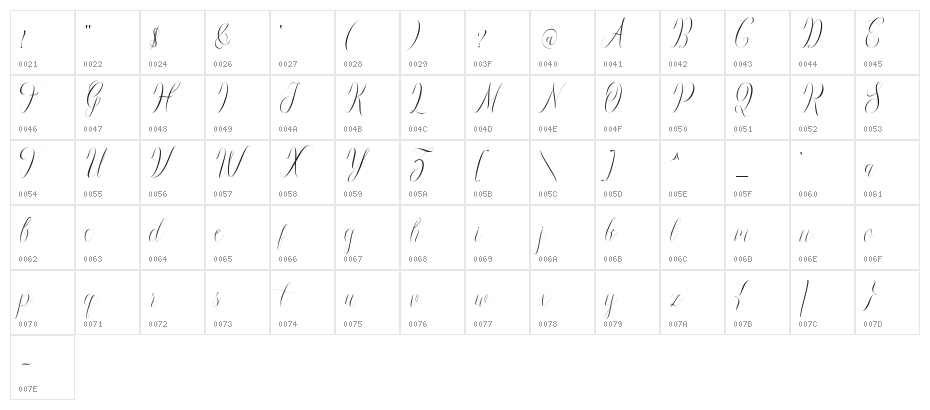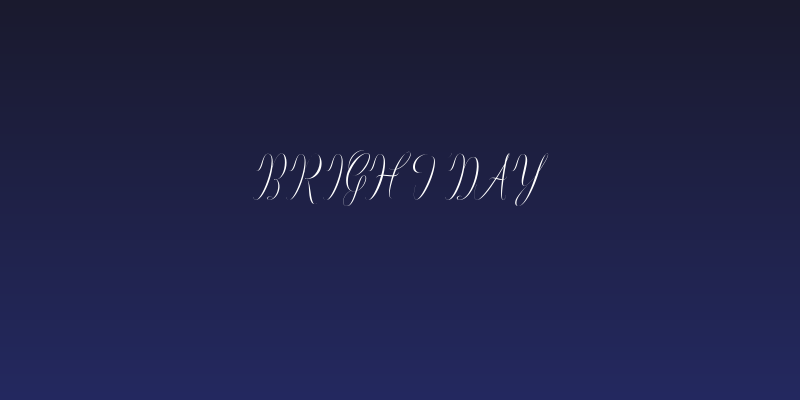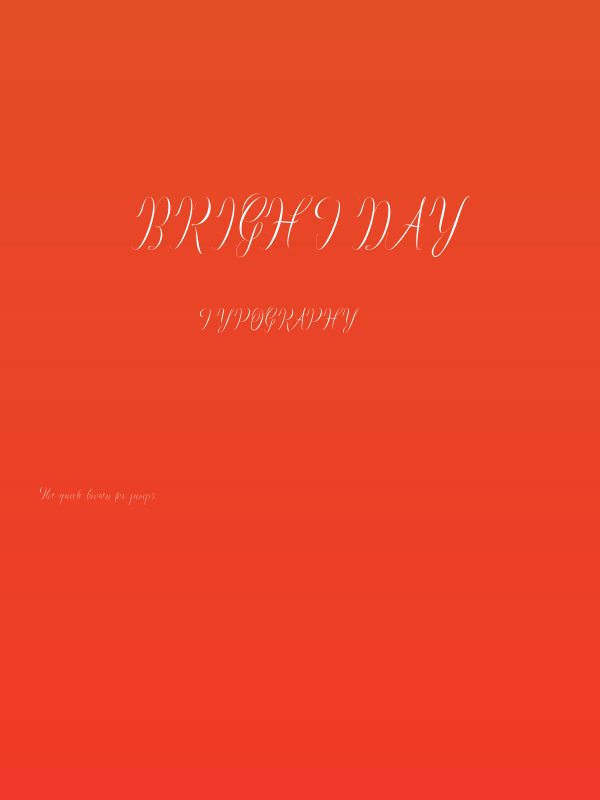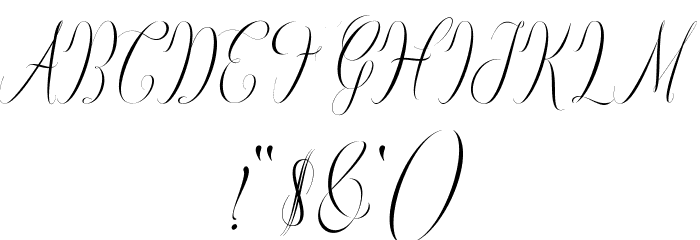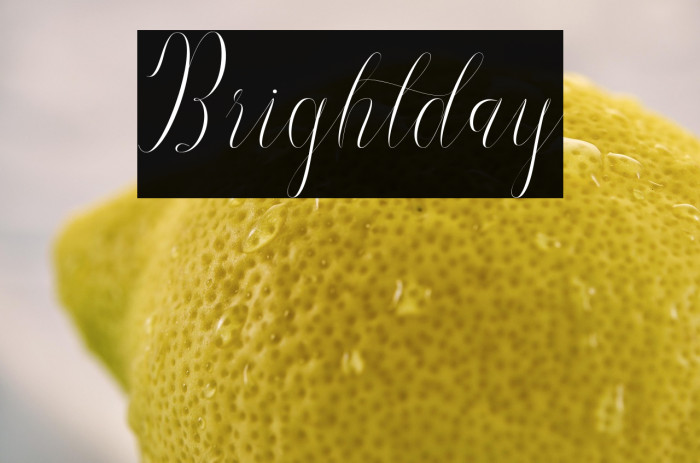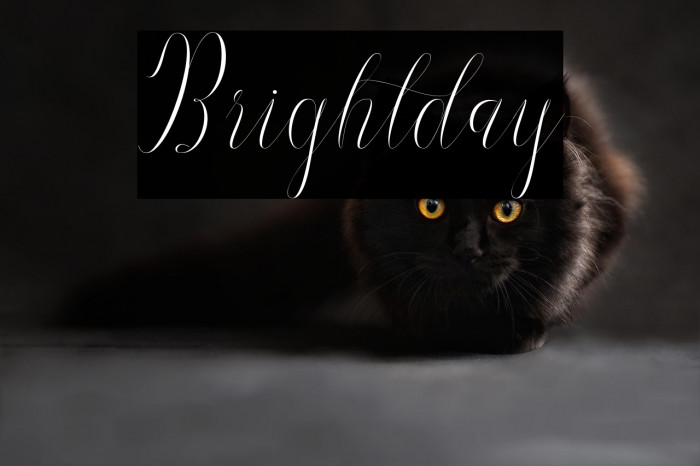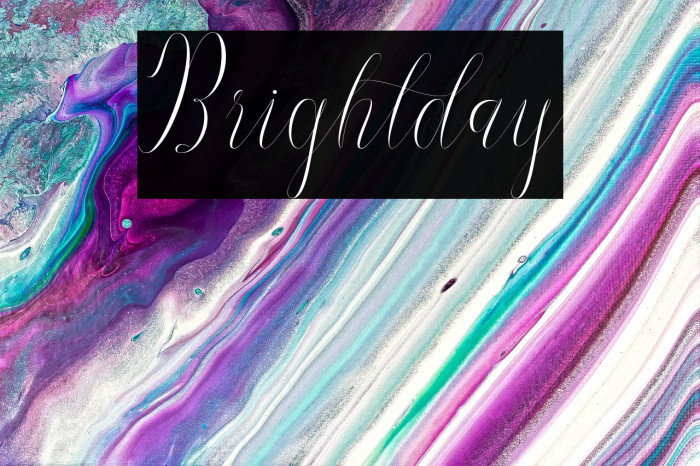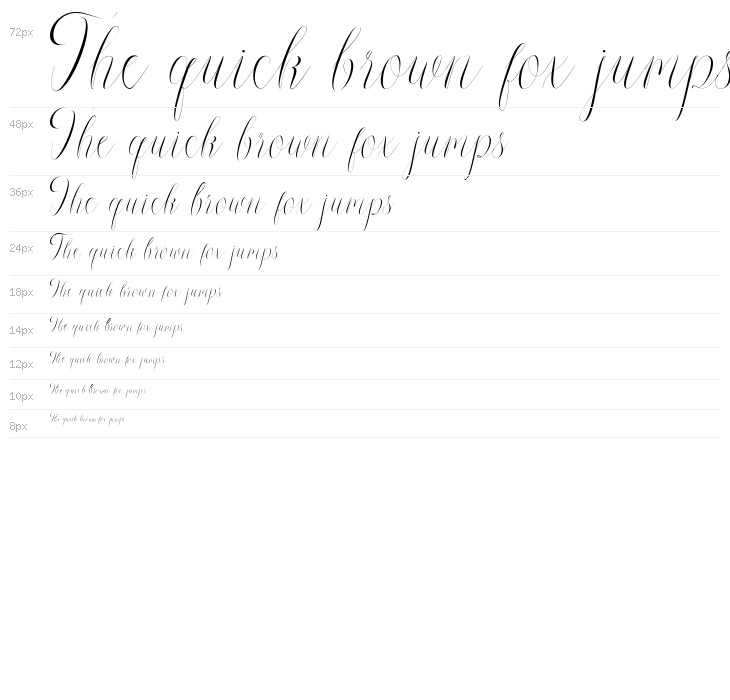
Brightday Font
Brightday Description
This elegant script font features flowing, cursive letters with a refined and sophisticated appearance. The characters are delicately crafted with thin, graceful strokes that create a sense of fluidity and movement. The uppercase letters are particularly ornate, with intricate loops and swashes that add a touch of luxury and flair. The lowercase letters maintain a consistent style, complementing the uppercase with their smooth, connected forms. The font's overall design is reminiscent of classic calligraphy, making it suitable for formal and decorative applications. The special characters, including punctuation marks, are designed with the same attention to detail, ensuring a cohesive look across all text elements.
| Use Case | Logos, Invitations, Decorative text |
| Proposed Projects | Ideal for wedding invitations, luxury branding, elegant stationery, and high-end product packaging. |